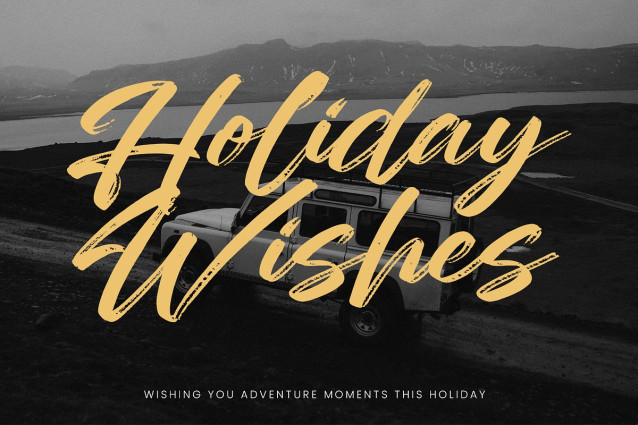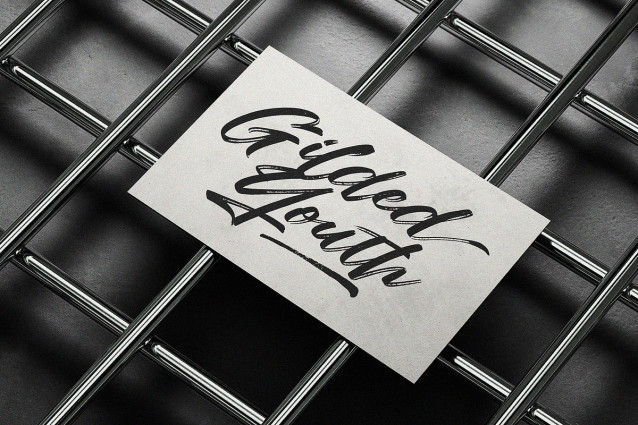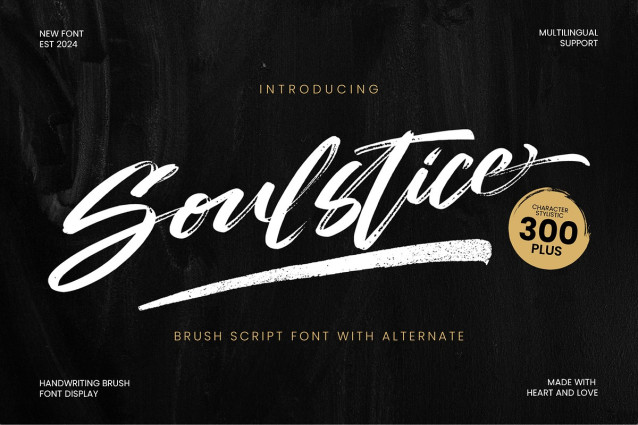
Soulstice Brush Font
Soulstice Brush Font is a dynamic alternate brush script, perfect for bold logos, social media, and expressive designs with a modern, handcrafted feel